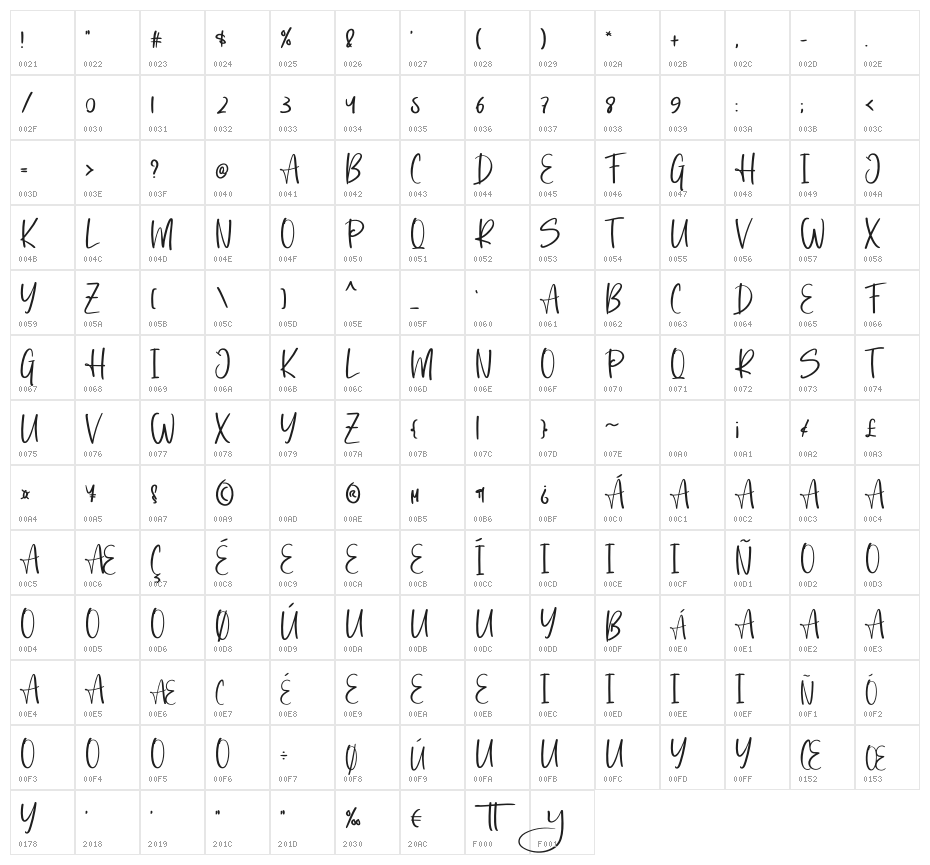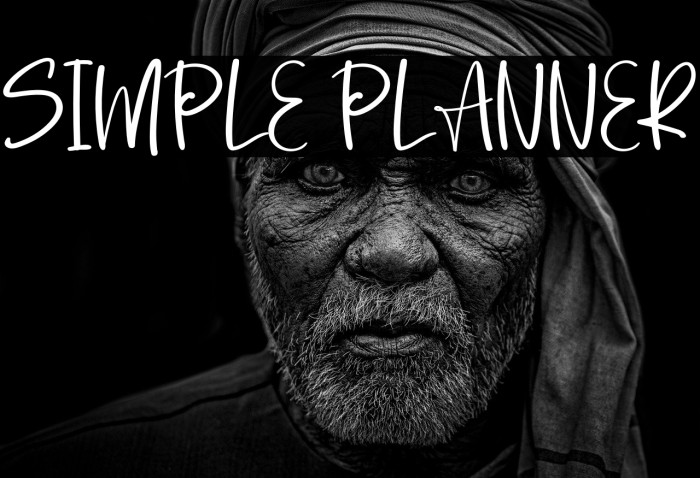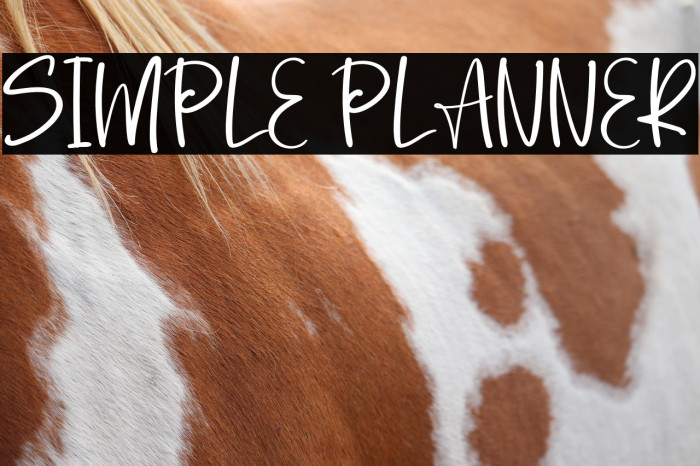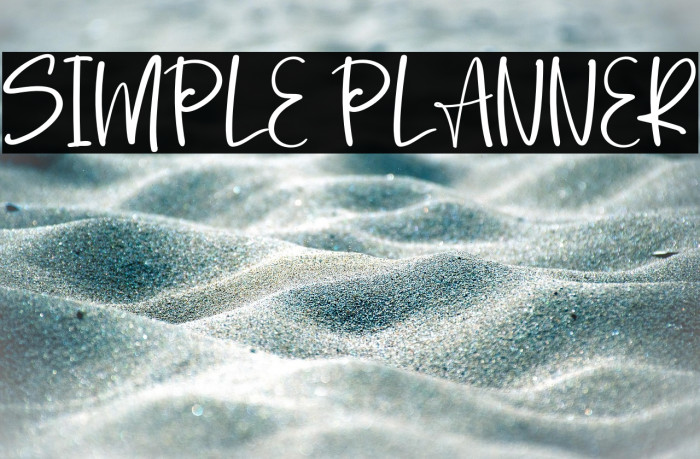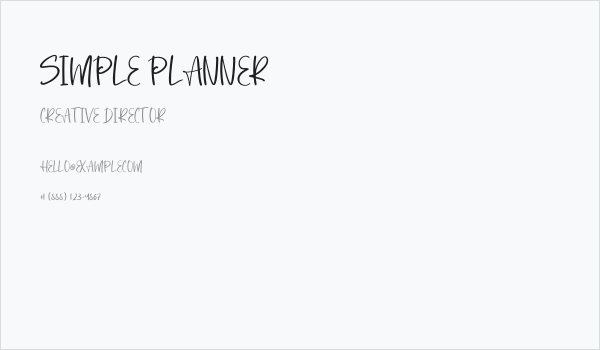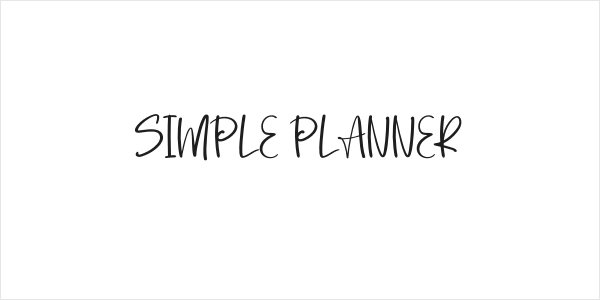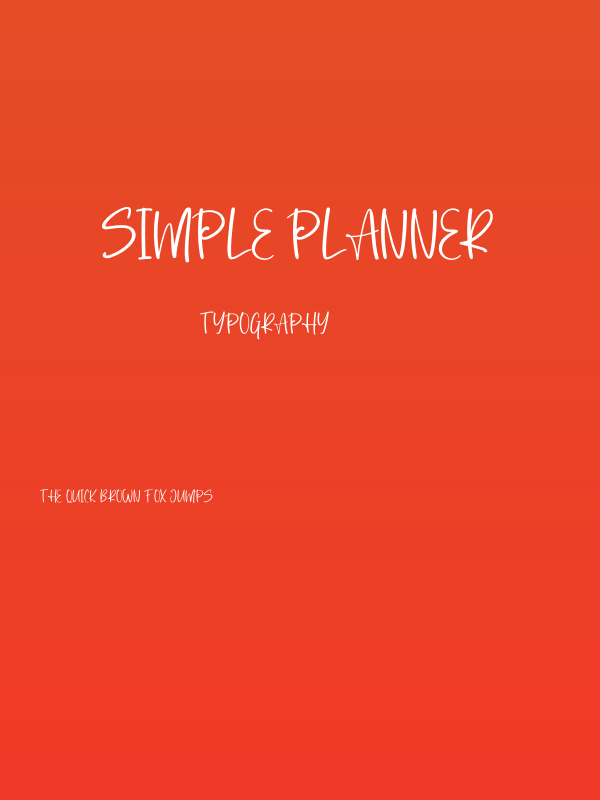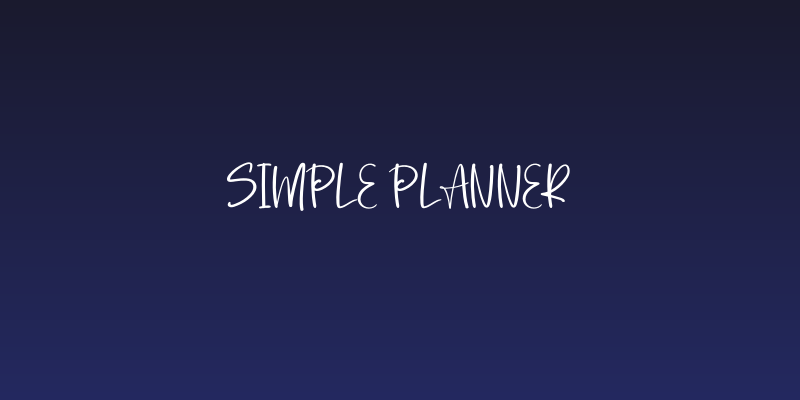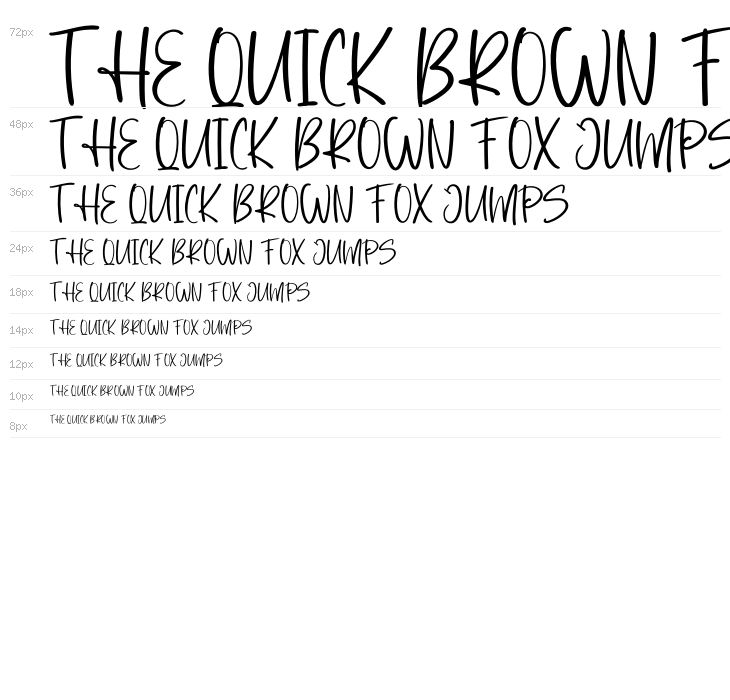
Simple Planner Font
Simple Planner Description
This font exudes a casual and playful handwritten style, characterized by its elongated and slightly irregular letterforms. The strokes are smooth and fluid, giving it a relaxed and approachable feel. The uppercase and lowercase letters maintain a consistent style, with a slight slant that adds to its informal charm. The numerals and special characters are equally expressive, maintaining the overall aesthetic. This font is perfect for projects that require a personal touch, such as invitations, greeting cards, or creative branding.
| Use Case | Headlines, Logos, Personal projects |
| Proposed Projects | Ideal for invitations, greeting cards, creative branding, and personal projects. |